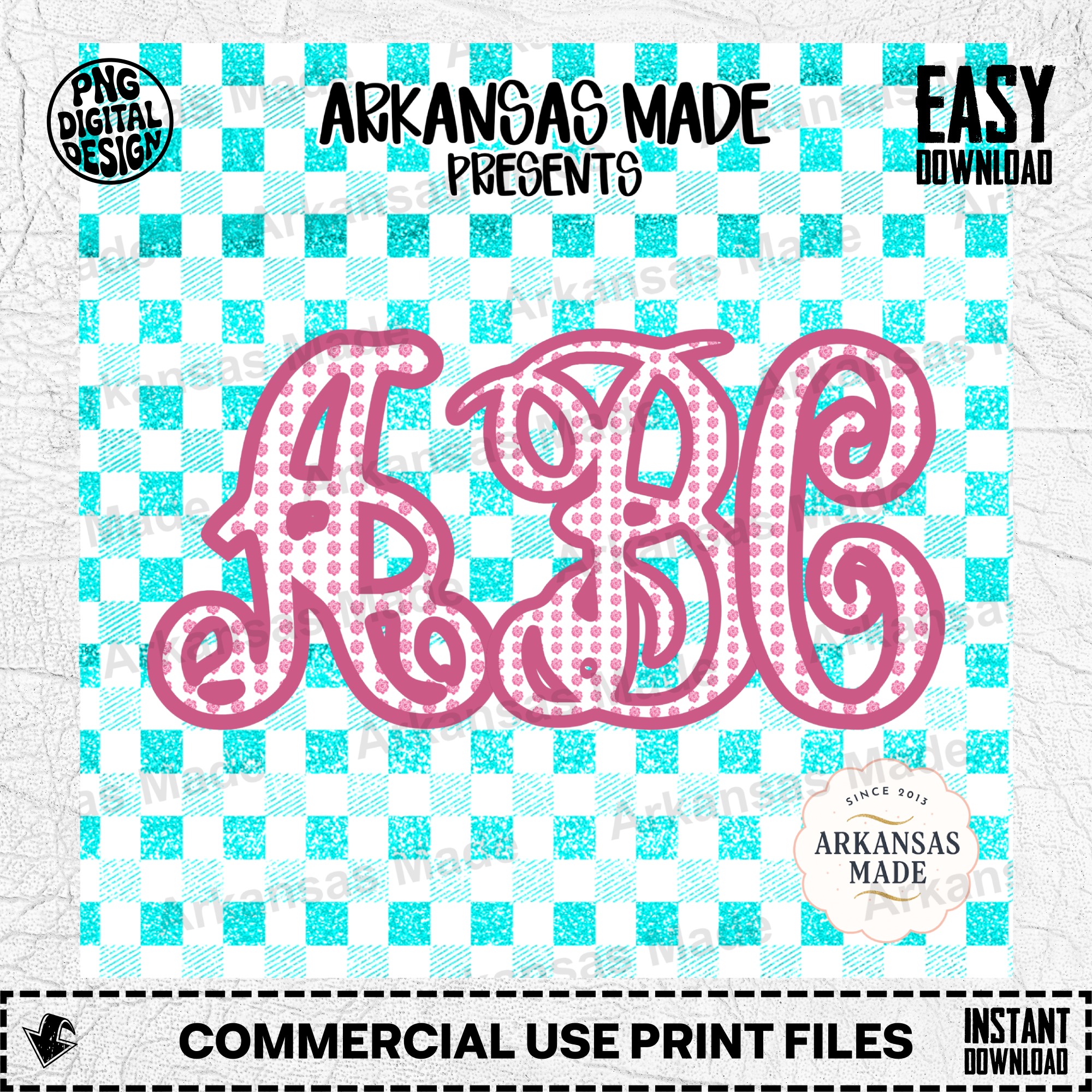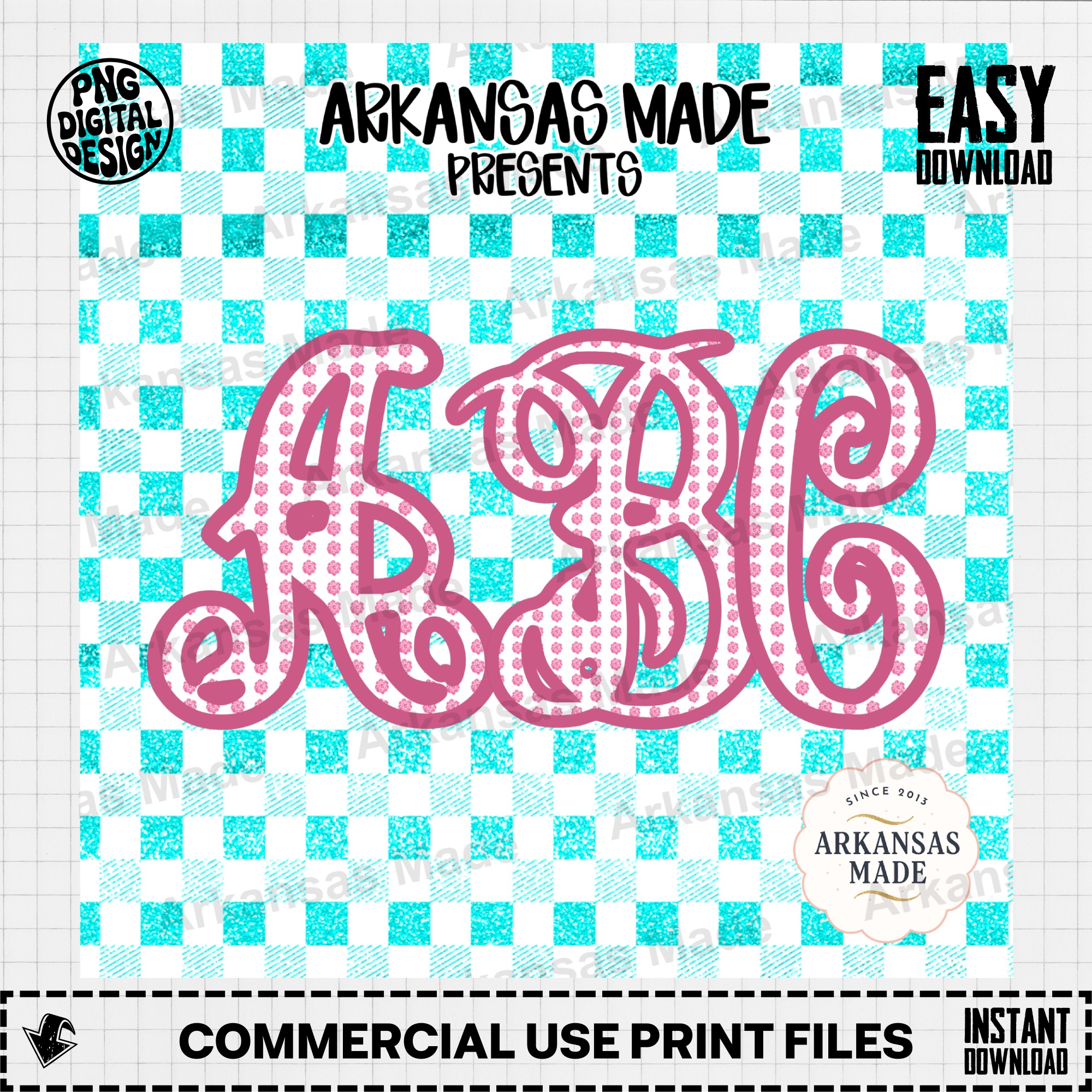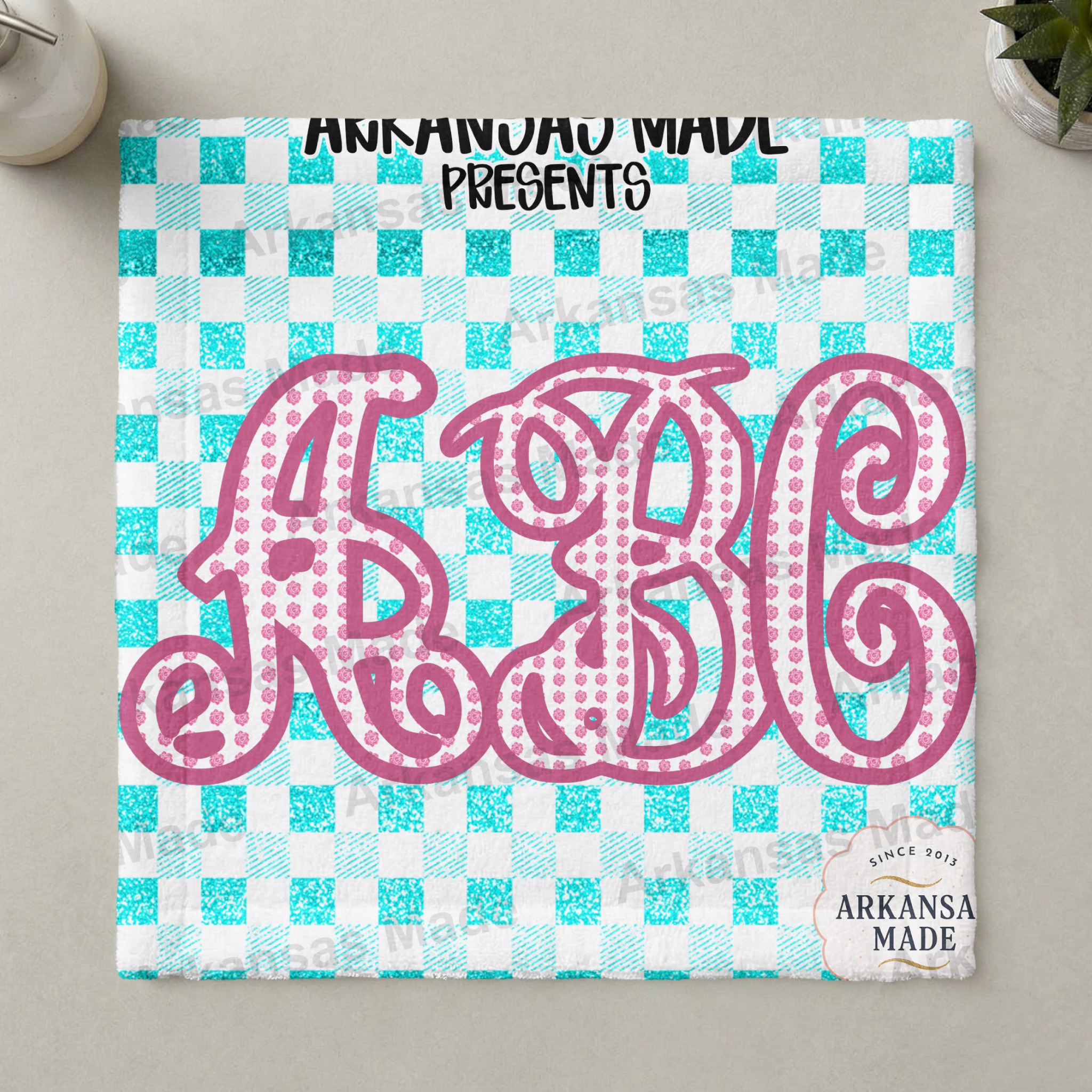
Pink Rose Monogram Alphabet Digital Download Alpha Set – Faux Glitter Teal Gingham Letters PNG, Script Font for Custom Crafts, Southern
Elevate your DIY projects with this charming Pink Rose Monogram Alphabet Digital Download Alpha Set, featuring a script font and faux glitter teal gingham background. This vibrant and preppy design is perfect for crafters, sorority sisters, and anyone who loves a touch of Southern charm in their creations. Use these versatile PNG letters for personalized gifts, nursery decor, baby shower projects, or custom apparel, adding a unique and feminine flair to every design.